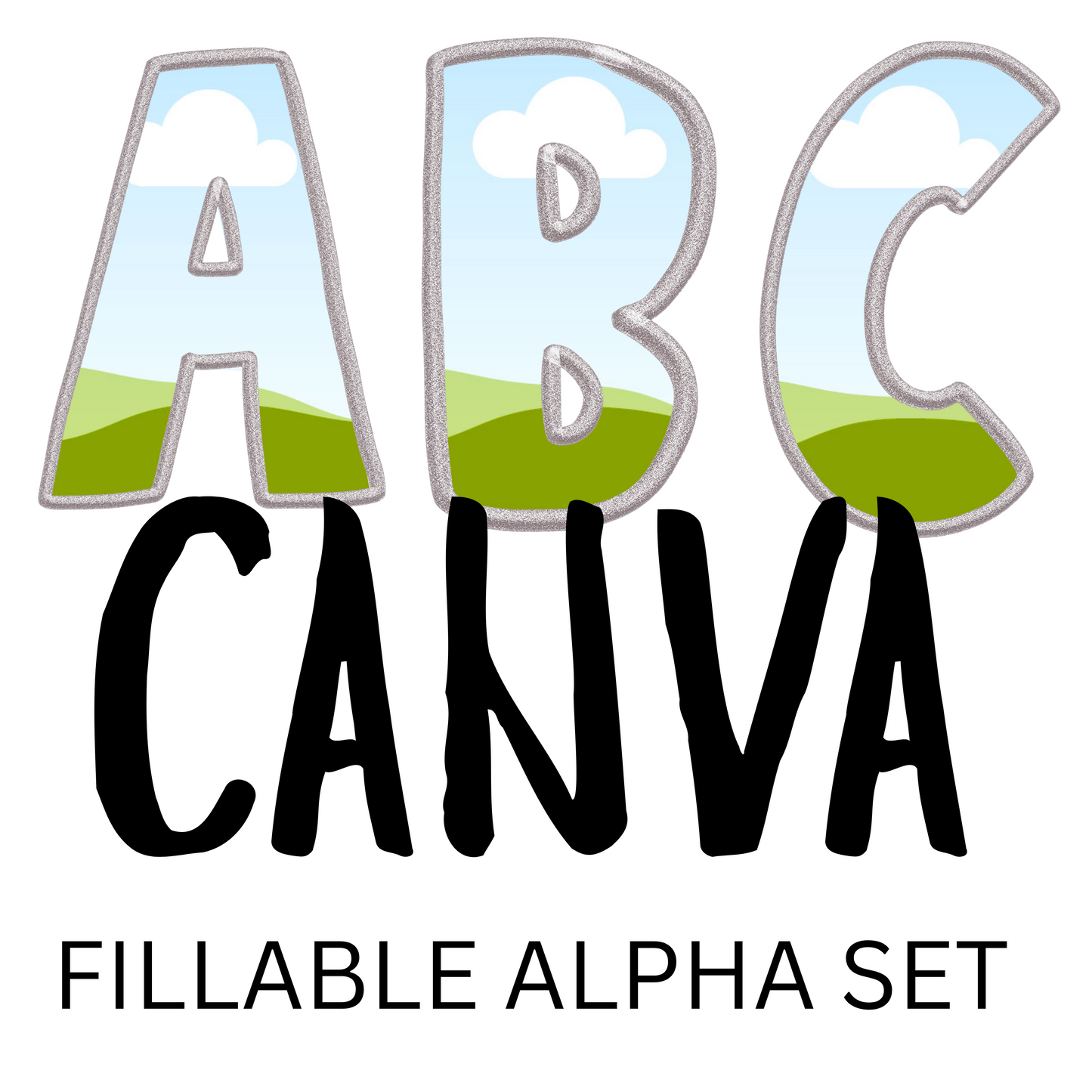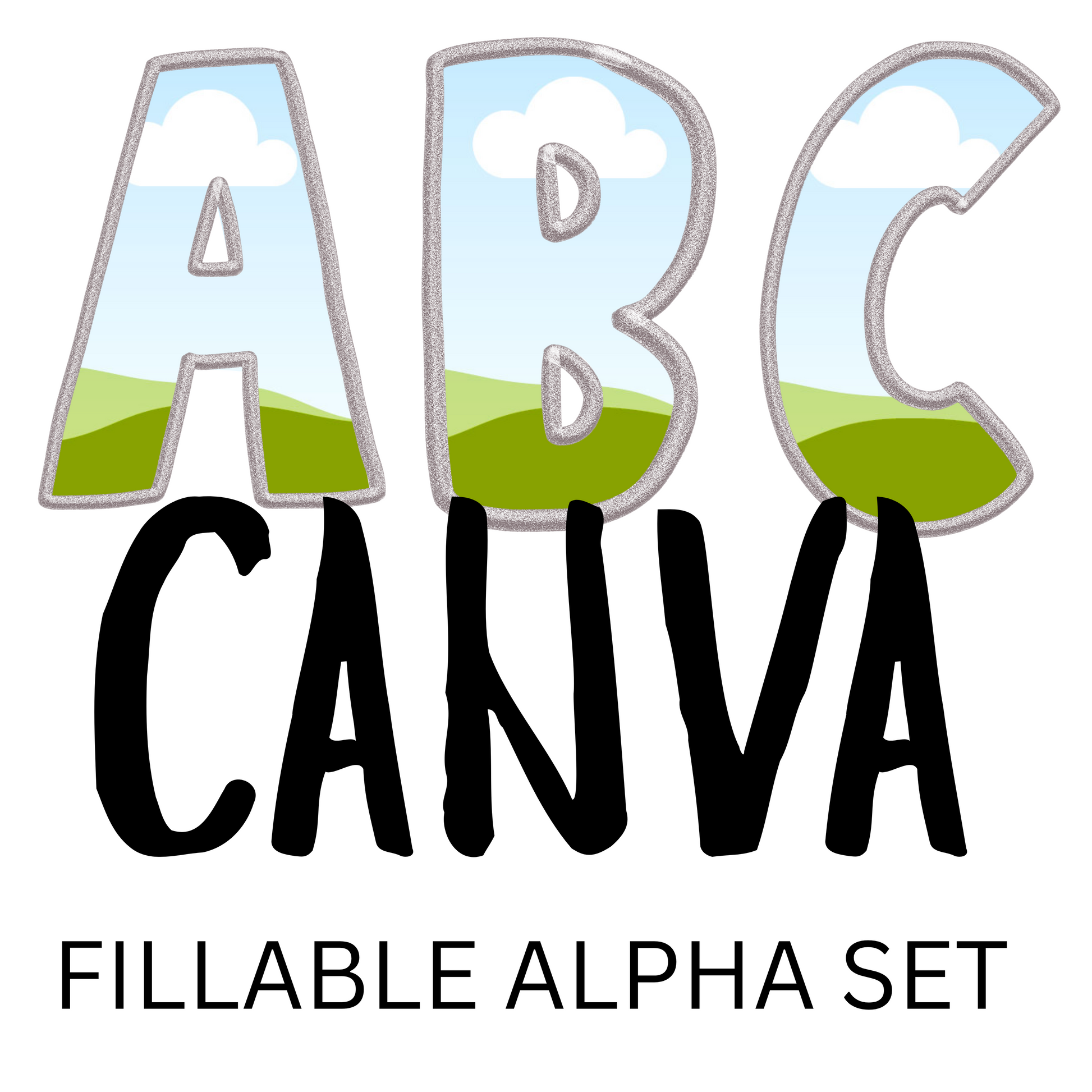
Canva Fillable Alpha Set – Glitter Border Font Frames
Create your own custom alphabet designs with this easy-to-use Canva-compatible fillable font set! Each letter features a clear drag-and-drop window inside a bold glitter border—perfect for designers who want to make and sell their own digital alphabet sets.
• Transparent “window” areas compatible with Canva frames